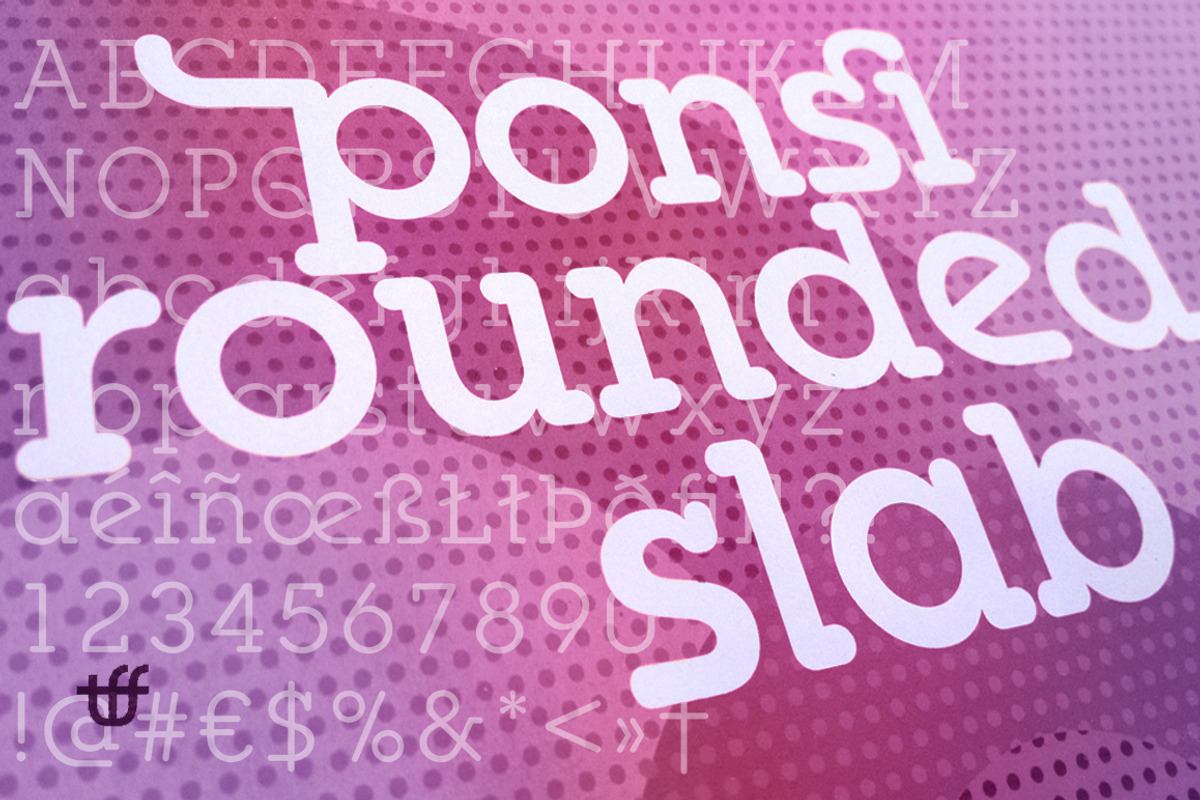
Ponsi Rounded Slab Font Free Download is a friendly and modern typeface that combines the boldness of a slab serif with the soft appeal of rounded edges. Perfect for branding, packaging, posters, and web design, this font brings a welcoming and contemporary feel to your typography.
Ponsi Rounded Slab Font Free Download is both sturdy and approachable—offering excellent readability while maintaining a unique personality. Its versatility makes it a great choice for creative professionals, startups, lifestyle brands, and anyone looking to strike a balance between playful and professional.
Whether you're designing logos, editorial layouts, or marketing materials, Ponsi delivers a clean yet distinctive look across both print and digital formats. Try it out in personal mockups or concept projects, but a commercial license is required for professional use. Add warmth and structure to your designs with Ponsi.